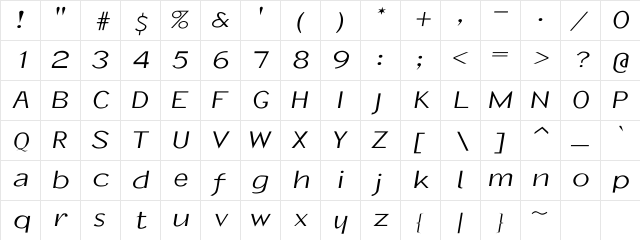
InformalOblique Wd Regular
Design Context for InformalOblique Wd
InformalOblique Wd is a composed and adaptable typeface that performs quietly and consistently across a wide range of design contexts. The slanted form adds forward momentum and visual energy.
Pro Tip: Use InformalOblique Wd for emphasis, pull quotes, and subheadings where its slanted energy can add rhythm to the layout.